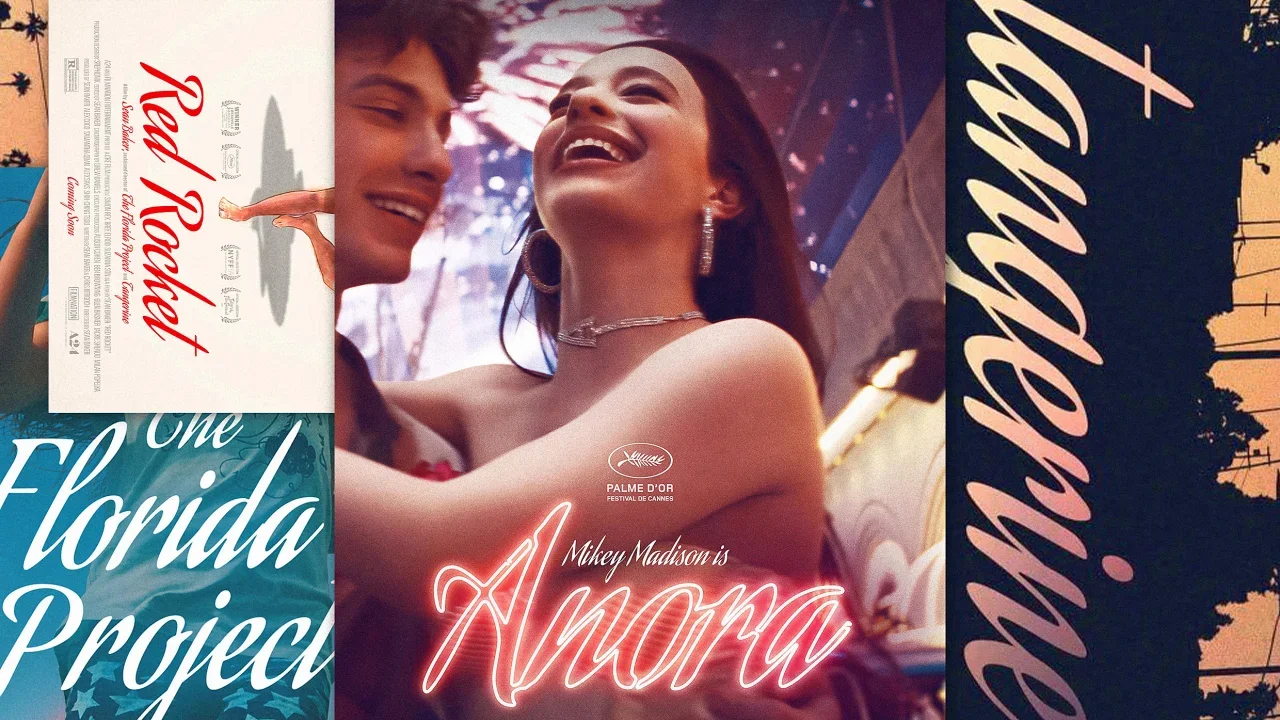
Why Sean Baker uses the same font in every one of his movies
For filmmakers with a fondness for certain fonts, using them frequently enough in their work can turn typography into a sort of signature. See the typeface in a film, and you know exactly who the director is.
Wes Anderson has an obsession with Futura, while John Carpenter set his film credits in Albertus, a formal serif. Papyrus is now synonymous with James Cameron’s Avatar franchise, and more than 40 of Woody Allen’s films use Windsor. For director Sean Baker, whose comedy-drama Anora won the 2025 Oscar for Best Picture and netted him the Academy Award for Best Director, his font of choice is the tall, narrow, decorative Aguafina Script.
Created by type designers Alejandro Paul and Angel Koziupa of the Argentinean type foundry Sudtipos, Aguafina Script is described as “semi-formal and eye-catching” with characters that “flow into each other,” perfect for product packaging, glossy magazines, and book covers. Turns out it also works well for movie posters and title sequences, as Baker has proven for more than a decade now with his various projects.
Baker told the streaming platform Mubi last year that he first selected Aguafina Script for the title sequence of 2015’s Tangerine, about a transgender sex worker (a film that was shot entirely on iPhones), because he was looking for something that was “stylistically interesting” and because it subverted the grittiness of the subject matter. “It is saying that there is an elegance to this production in the way we’re presenting the subject matter,” he said.
After realizing the font could serve the same purpose for 2017’s The Florida Project (about a girl and her single mother who live in a motel near Disney World), he said, “If I continue this it could eventually become something that people connect with—and connect with my films [the way Carpenter’s and Allen’s fonts did with theirs].”
“Now when you see those fonts, you think of those filmmakers and their films,” said Baker, who utilized Aguafina Script through to the movie posters too. “I like to have consistency between my advertising material and the actual credits.”
By weaving it into the visual identity of his films, including a recently minted Oscar winner, Baker has made Aguafina Script his own, and shown how type can be used to challenge viewers’ preconceived notions.